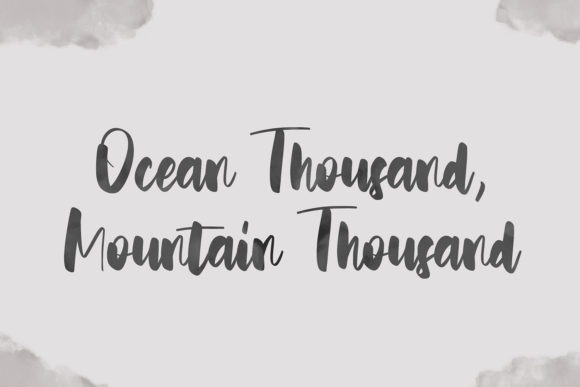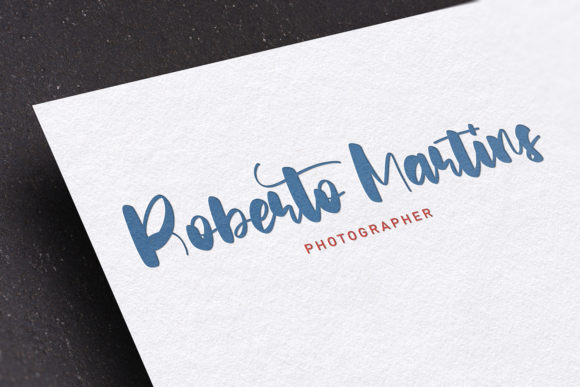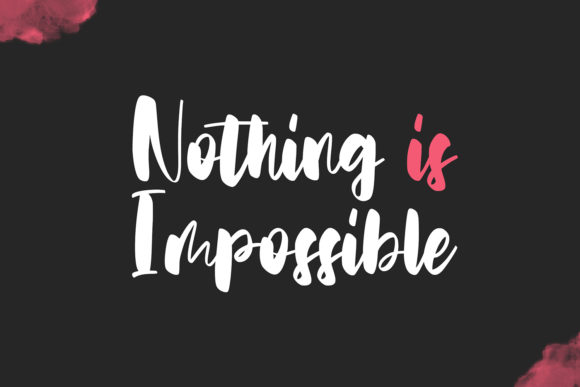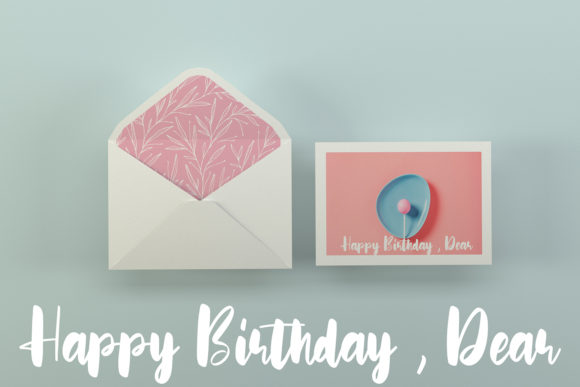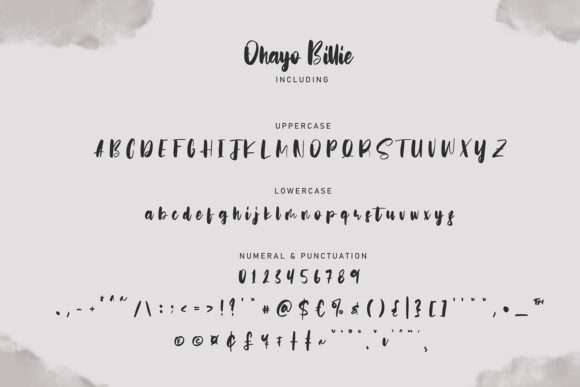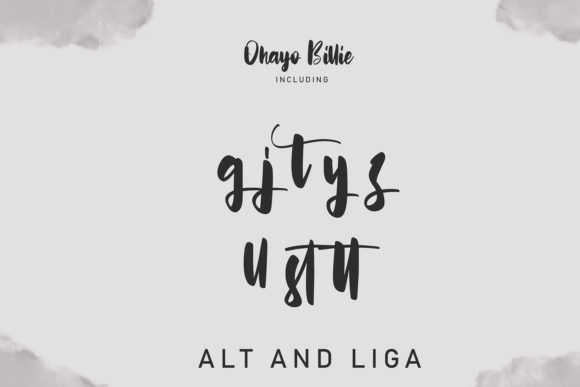
Introduction to Ohayo Billie Font Font
Fonts play a crucial role in design, and the Ohayo Billie Font font is a typeface that brings both character and versatility to any project. Whether you’re working on a branding project, a website, or a print design, the Ohayo Billie Font font offers a unique style that can elevate your work.
Ohayo Billie is a relaxed handwritten font.
Its casual charm makes it appear wonderfully down-to-earth, readable and, ultimately, incredibly versatile Ohayo Billie will look outstanding in any context, whether itβs being used on busy backgrounds or as a standalone headline.
Key Features of Ohayo Billie Font Font
Why Choose Ohayo Billie Font Font?
The Ohayo Billie Font font is more than just a typeface β it’s a design tool that helps you communicate your message with style and clarity. Its unique character set and versatile design make it suitable for a wide range of applications, from elegant invitations to bold headlines.
With its carefully crafted letterforms and balanced proportions, the Ohayo Billie Font font ensures readability and visual appeal across all mediums.
What makes Ohayo Billie Font font special?
The Ohayo Billie Font font stands out with its unique design, exceptional readability, and versatility across various design applications.